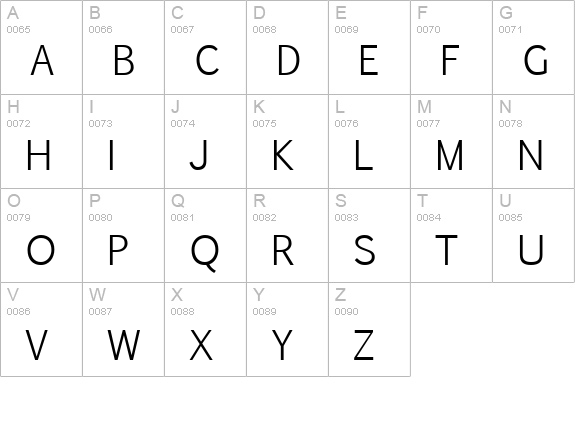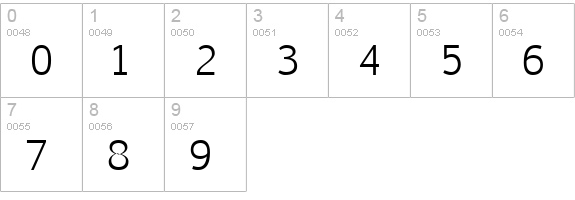
Pigiarniq Light Font Details
Pigiarniq Light is a refined, elegant variant in the Pigiarniq typeface family \xE2\x80\x94 well suited to elegant body text, refined sub-headings, and luxury branding.
Introducing Pigiarniq Light, a captivating and elegant font that effortlessly combines modernity with a touch of sophistication. Designed with utmost care and attention to detail, this font is perfect for adding a touch of uniqueness and finesse to your creative projects. Pigiarniq Light boasts a delicate and refined appearance, making it an ideal choice for various design applications. Whether you're crafting eye-catching logos, designing striking posters, or creating stunning invitations, this font will elevate your creations to new heights. With its sleek and slender letterforms, Pigiarniq Light exudes a sense of elegance and grace. The clean lines and smooth curves make reading effortless, ensuring maximum legibility in any context. Its versatility allows it to be used for both headlines and body text, lending a harmonious flow to your designs. What sets Pigiarniq Light apart is its exquisite attention to detail. Each character has been meticulously crafted to maintain a perfect balance between aesthetic appeal and functionality. The subtle nuances and subtle strokes add a touch of personality, making this font truly stand out. And the best part? Pigiarniq Light is absolutely free! That's right, you can download this exceptional font at no cost from FontsMarket.com. It's a gift to all designers and creatives who value quality and style without compromising their budget. So why wait? Enhance your projects today with the beauty and elegance of Pigiarniq Light.